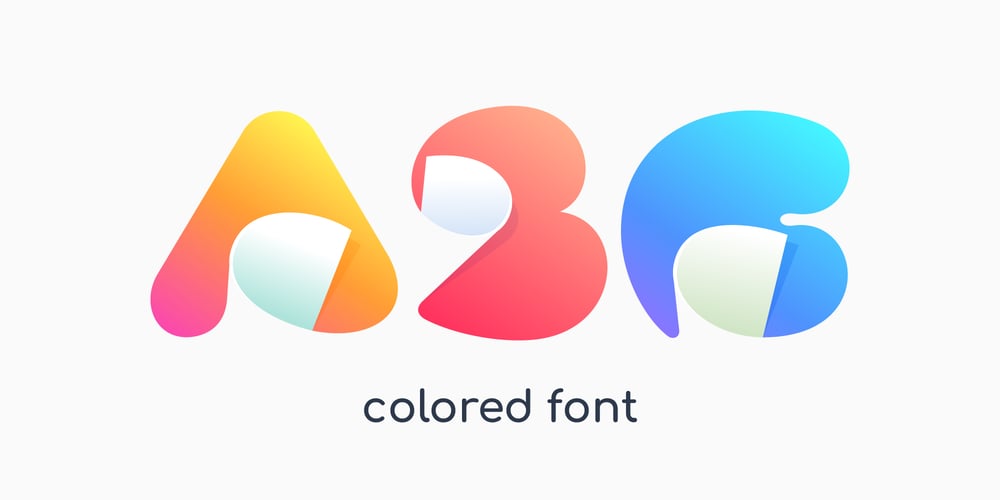
Curled Corner Font Family was designed by Roman Korolev and published by Kaer. Curled Corner contains 2 styles and family package options. I’m here for you with my new colored font Curled Corner! Alphabet made of letters with curled corner. It’s looks like negative space style icons. Colorful gradient note paper. Modern clean vector origami font for your stickers, crypto app, nft identity, and tags.All the letters in this font are colored brightly and vividly with corner overlay. —*You can use color fonts in PS since CC 2017, AI since CC 2018, ID since CC 2019, QuarkXPress since 2018, Pixelmator, Sketch, Affinity Designer Since macOS 10.14 Mojave, Paint.NET Windows only.**Please note that the Canva doesn’t support color fonts!*—What’s included?* Colored and B&W styles* A-Z & Numbers* BONUS icon (ligature) setIf you have any questions or issues, please contact me: kaer.pro@gmail.com Best, Roman.